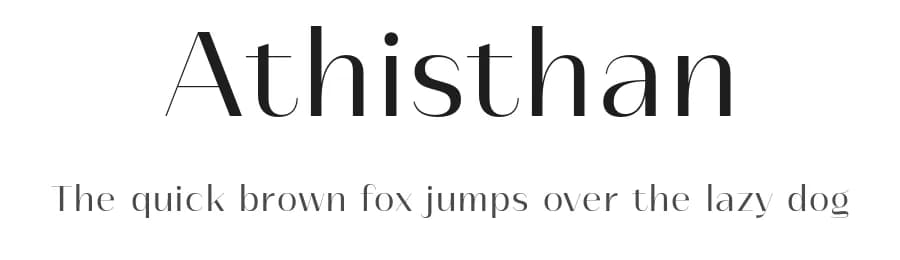
About Athisthan Font
Athisthan is a contrast sans serif typeface with loop head style for Thai character. Formal, elegant, charming look. Suitable for headline and sub-headline. Comes with 9 weights and italics of each weight total 18 styles, and there are features such as Small Caps and many features available for you. Support multi-languages.
| Designer | Anupap Jaichumnan |
- Small capitals from capitals
- Small capitals
Athisthan Font
by Jipatype